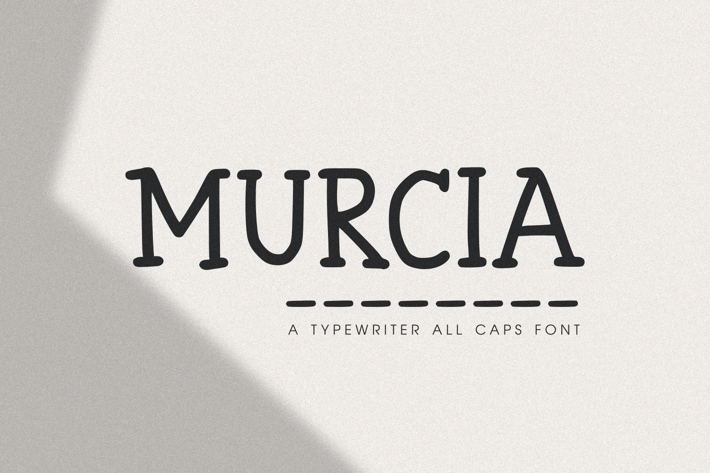
Murcia - The Typewriter All Caps Font
Murcia - The Typewriter All Caps Font, it’s perfect for logos, name card, magazine layouts, invitations, headers, or even large-scale artwork.